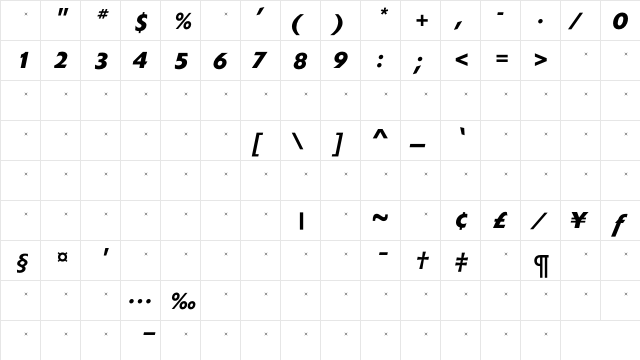
ExtensionBoldItalicTab Regular Font Preview
Design Context for ExtensionBoldItalicTab Typeface
ExtensionBoldItalicTab offers clean, dependable letterforms without strong stylistic allegiance, making it a practical choice for designers who need flexibility. The dynamic lean of this cut emphasises speed and emphasis in any layout. The heavy weight commands attention and anchors typographic hierarchies.
Pro Tip: Try ExtensionBoldItalicTab for annotation and caption copy alongside an upright companion — the contrast in angle creates a dynamic but ordered typographic system.